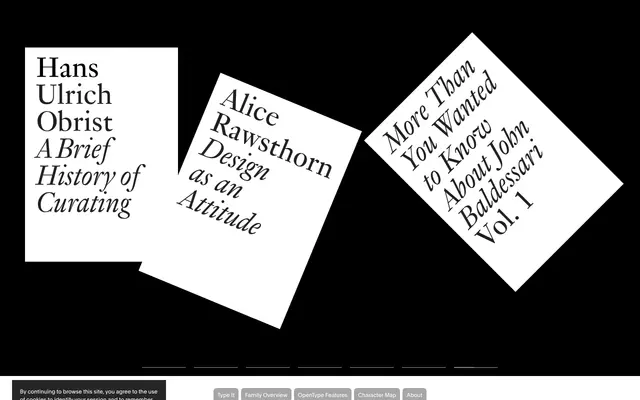
Genath
Genath specimen from Optimo
François Rappo's Baroque revival of Johann Wilhelm Haas's 1720 Genath Foundry types, with text and display optical cuts.
A Baroque revival serif by François Rappo, drawn from a 1720 specimen of Johann Wilhelm Haas's first design for the Genath Foundry in Basel. Slightly condensed and highly contrasting, the family keeps the playful, fancy details of the source while offering a clean digital interpretation. Text weights run from Light to Extrabold with italics, and a Display cut adds Thin and finer-tuned proportions for headlines and footnotes alike.
Optimo describes Genath as a revival type based on a 1720 specimen including Johann Wilhelm Haas's first design for the Genath Foundry in Basel, slightly condensed, highly contrasting and Baroque in character.